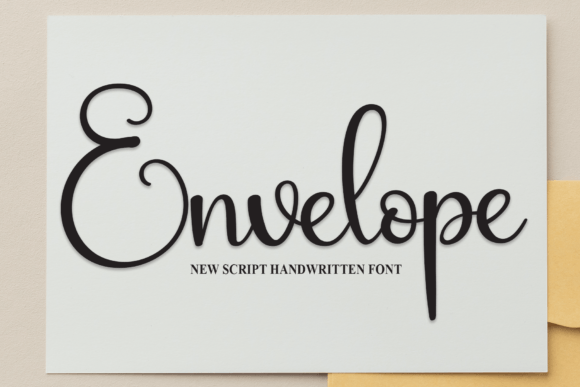
The Envelope Font: A Charming and Elegant Addition to Your Designs
Have you ever been working on a design project, pouring your heart and soul into it, and then suddenly realized that something is missing? You’re not quite sure what it is, but you know that it needs a little extra something to make it special. For me, that “something” is often a beautiful font, and today I want to share with you one of my favorites: the Envelope font.
A Design Moment: When Fonts Make All the Difference
I recall working on a wedding invitation design for a dear friend. The layout was perfect, the colors were lovely, but something felt off. It wasn’t until I added the Envelope font that the design truly came alive. The elegant, handwritten feel of the font added a touch of sophistication and whimsy that perfectly captured the tone of the wedding. From that moment on, I was hooked on the Envelope font.
What I Love About Envelope Font
- ✨ Elegant and charming: The Envelope font has a unique, handwritten feel that’s perfect for adding a touch of sophistication to your designs.
- ✅ Versatile: This font is perfect for a wide range of design projects, from wedding invitations and thank you cards to quotes, greeting cards, logos, and business cards.
- 💫 Beautiful OpenType features: The Envelope font comes with a range of OpenType features, including glyphs and stylistic alternates, that allow you to customize your text and make it truly unique.
While the Envelope font is an amazing addition to any design, there are a few things to keep in mind. ⚠️ Some users have reported that the font can be a bit tricky to work with in certain design programs, particularly when it comes to accessing the OpenType features. However, with a little practice and patience, you’ll be able to get the most out of this beautiful font.
🤔 Another thing to consider is that the Envelope font is a bit more formal than some other handwritten fonts, so it may not be the best choice for very casual or playful designs.
The Designer Inspiration Behind Envelope Font
The Envelope font was inspired by the beautiful, handwritten scripts of the past. The designer behind the font wanted to create a font that would allow users to add a touch of elegance and sophistication to their designs, without sacrificing readability or versatility.
Q: Is the Envelope font easy to read?
A: Yes, the Envelope font is designed to be easy to read, even at small sizes.